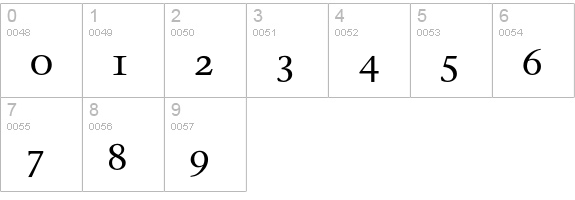
StoneSerifSCEF-Medium is a balanced, medium-weight variant in the StoneSerifSCEF typeface family \xE2\x80\x94 well suited to sub-headlines, navigation, and balanced editorial work.
StoneSerifSCEF-Medium is a versatile and elegant font that exudes sophistication and modernity. With its clean lines and sharp serifs, this typeface is perfect for a wide range of design projects, from branding and packaging to editorial and web design. The Medium weight strikes a perfect balance between boldness and readability, making it suitable for both headlines and body text. The best part about StoneSerifSCEF-Medium font is that it is completely free to download from FontsMarket.com. This means you can easily access this high-quality font and use it in your projects without any cost. Whether you are a professional designer looking to add a new font to your collection or a hobbyist seeking to elevate your creative projects, StoneSerifSCEF-Medium is a fantastic choice that won't break the bank. Don't miss out on the opportunity to enhance your designs with the timeless appeal of StoneSerifSCEF-Medium font, now available for free download at FontsMarket.com.